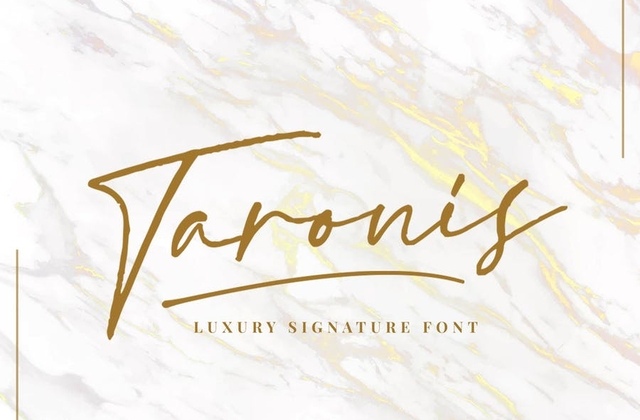
Taronis Signature Font
The Taronis Signature Font excels in sophisticated design applications including premium brand identities, elegant business logos, luxury product packaging, refined wedding invitations, upscale restaurant branding, artistic portfolios, distinguished certificates, boutique signage, creative marketing materials, and sophisticated web design. Its refined script style makes it perfect for projects requiring distinguished elegance that communicates sophistication and establishes premium brand positioning with discerning audiences seeking exceptional design quality.
What makes the Taronis Signature Font genuinely exciting is its masterful balance of classical elegance with contemporary sophistication. The font features gracefully flowing letterforms with refined flourishes and perfectly balanced proportions that create a distinctly aristocratic appearance. Each character displays exceptional attention to detail with smooth curves, elegant connections, and sophisticated spacing that give text a luxurious, hand-crafted quality. The font's distinguished character and harmonious rhythm create an atmosphere of refinement while maintaining approachable warmth and timeless appeal.
The Taronis Signature Font family typically includes regular weight with comprehensive character sets, featuring uppercase and lowercase letters, numerals, punctuation, and international glyphs. The typeface often incorporates stylistic alternates, contextual ligatures, and elegant swashes that enhance its signature sophistication. These additional elements provide designers with creative options to customize text appearance and achieve more natural-looking refined handwriting that reflects the font's distinguished and sophisticated character.
This premium signature font captivates refined audiences through its remarkable ability to convey luxury and authenticity simultaneously. Unlike generic script fonts that lack personality, Taronis Signature Font possesses distinctive character traits that resonate with sophisticated audiences who appreciate quality craftsmanship. The font's elegant appearance makes it essential for luxury brands and upscale projects where excellence and refinement are fundamental requirements for establishing credibility in competitive premium markets.